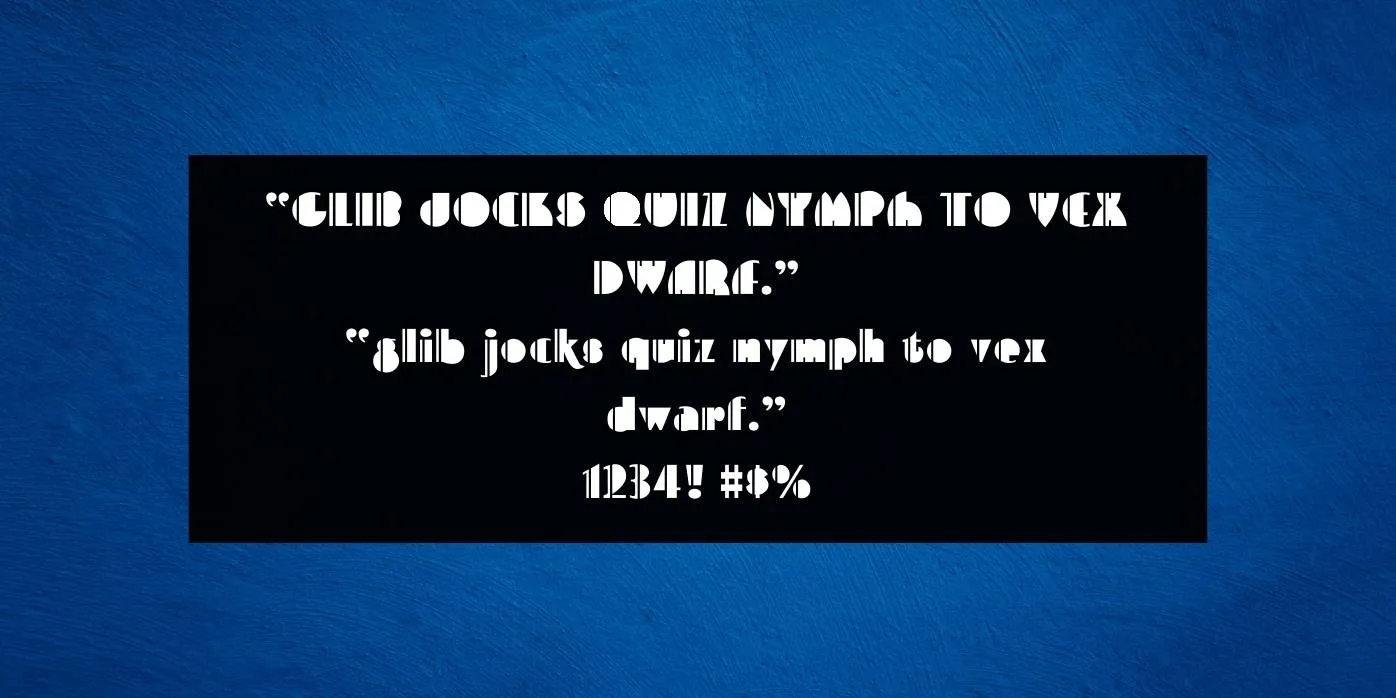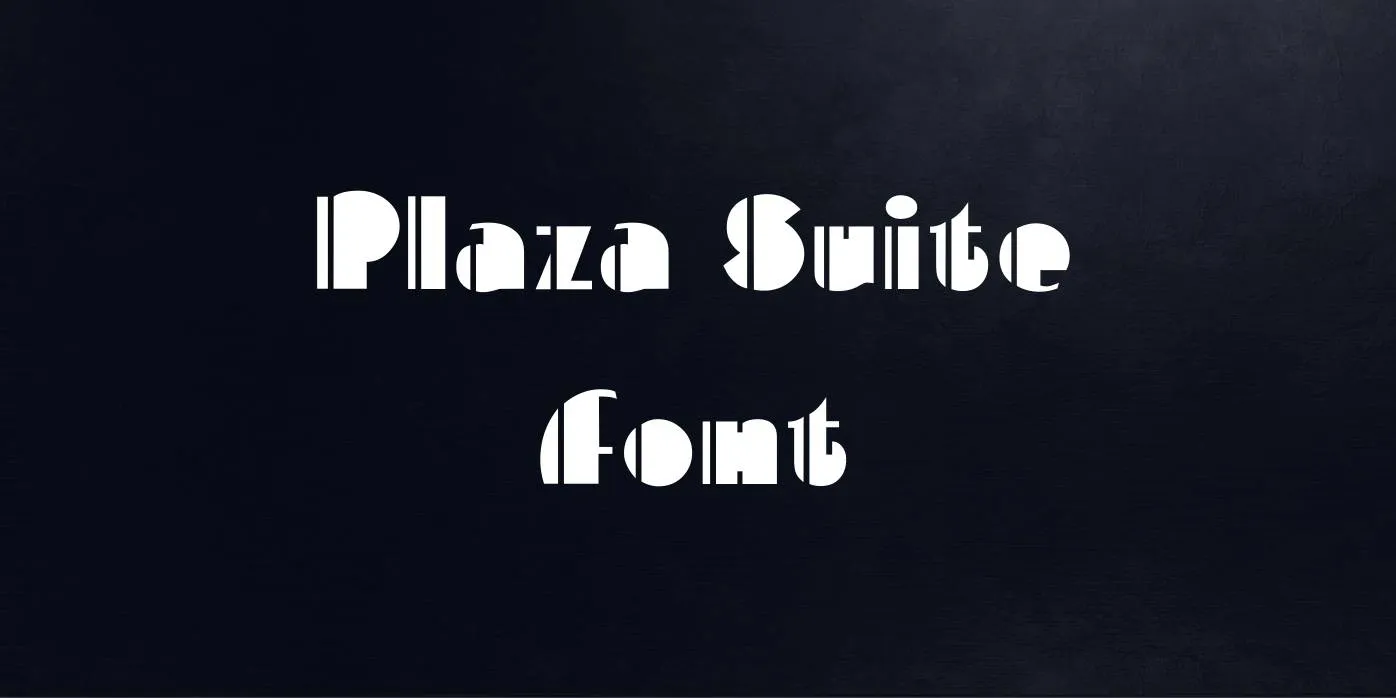
Plaza Suite Font
Plaza Suite Font is an elegant fancy font family. It was designed by Mans Greback in 1902. The Font family includes a variety of different styles, such as light, italic, and bold. Thefont is named after the Plaza Hotel in New York City.
This Font has a wide range of uses. It can be used for body text, headlines, and even display purposes. The Plaza Suite Font is a versatile font that can be used in a variety of different contexts. This Font is available in both TrueType and OpenType formats.
The OpenType format includes support for a wide range of languages, such as Arabic, Cyrillic, Hebrew, and Latin. The TrueType format is compatible with all major operating systems. It is also known for its immense language supports same as the bahaus font and it can support many different international alphabets. This Font is a classic font that has been around for over 100 years.
It is a versatile font that can be used in a variety of different contexts.